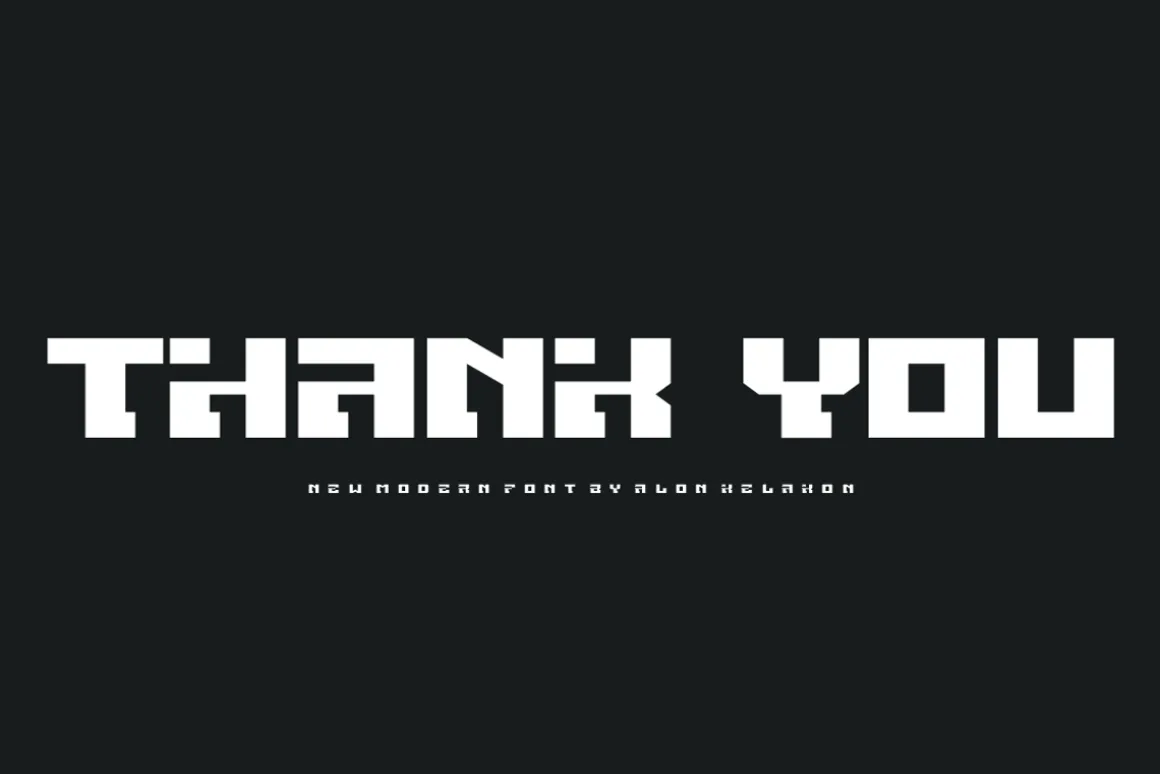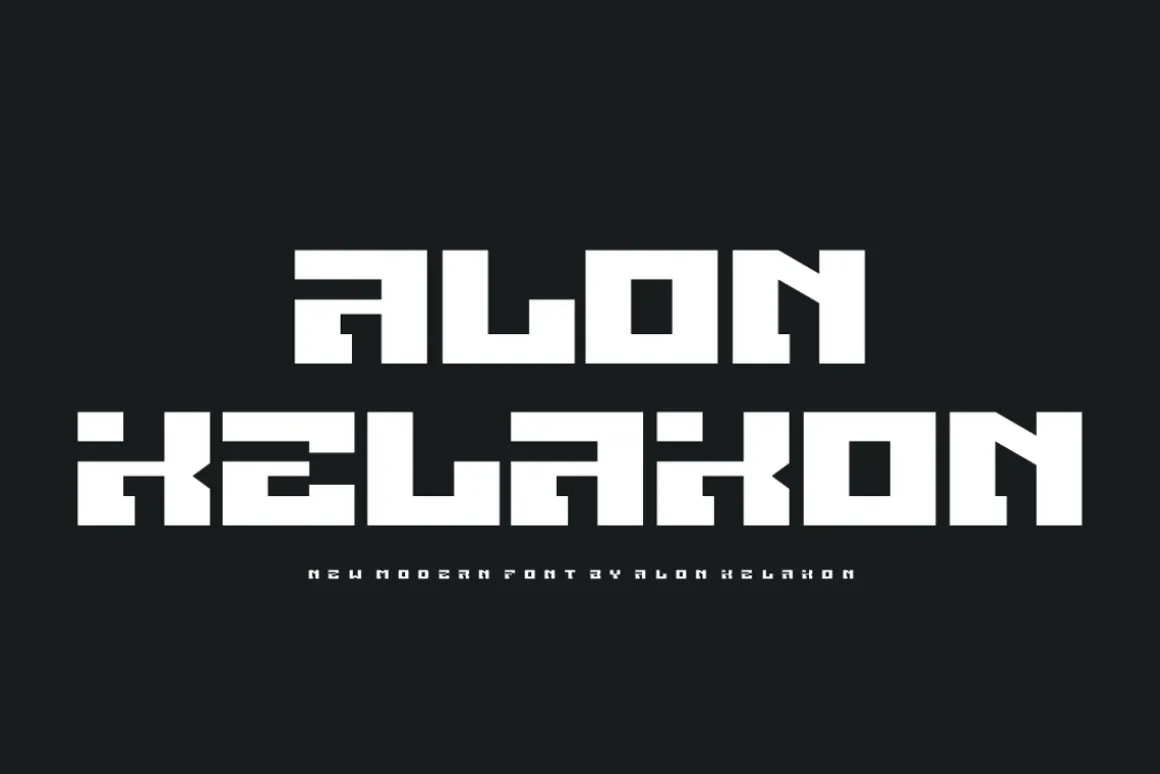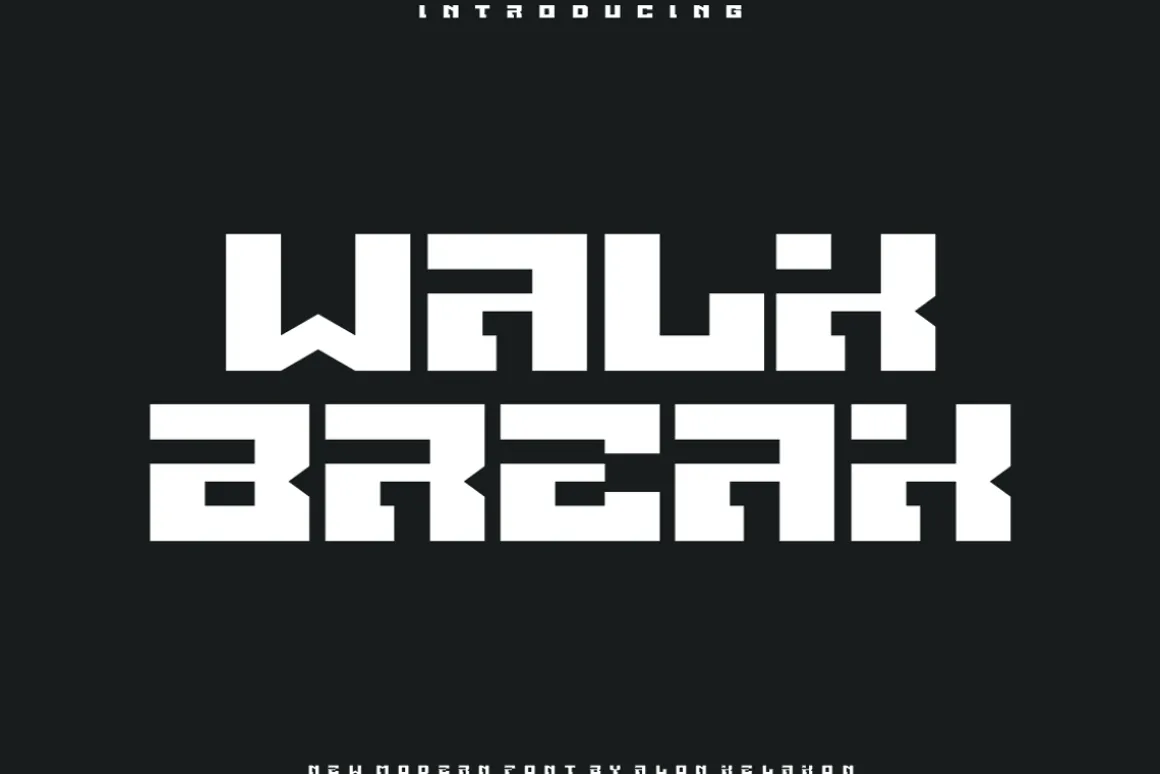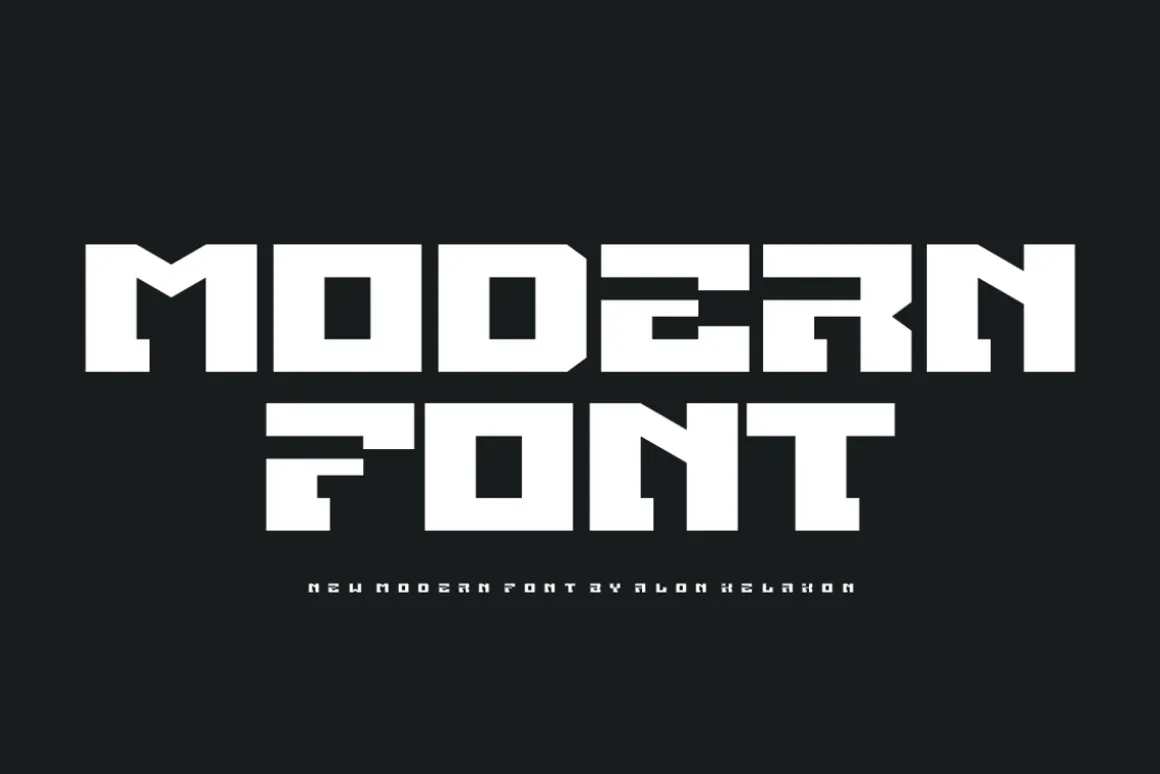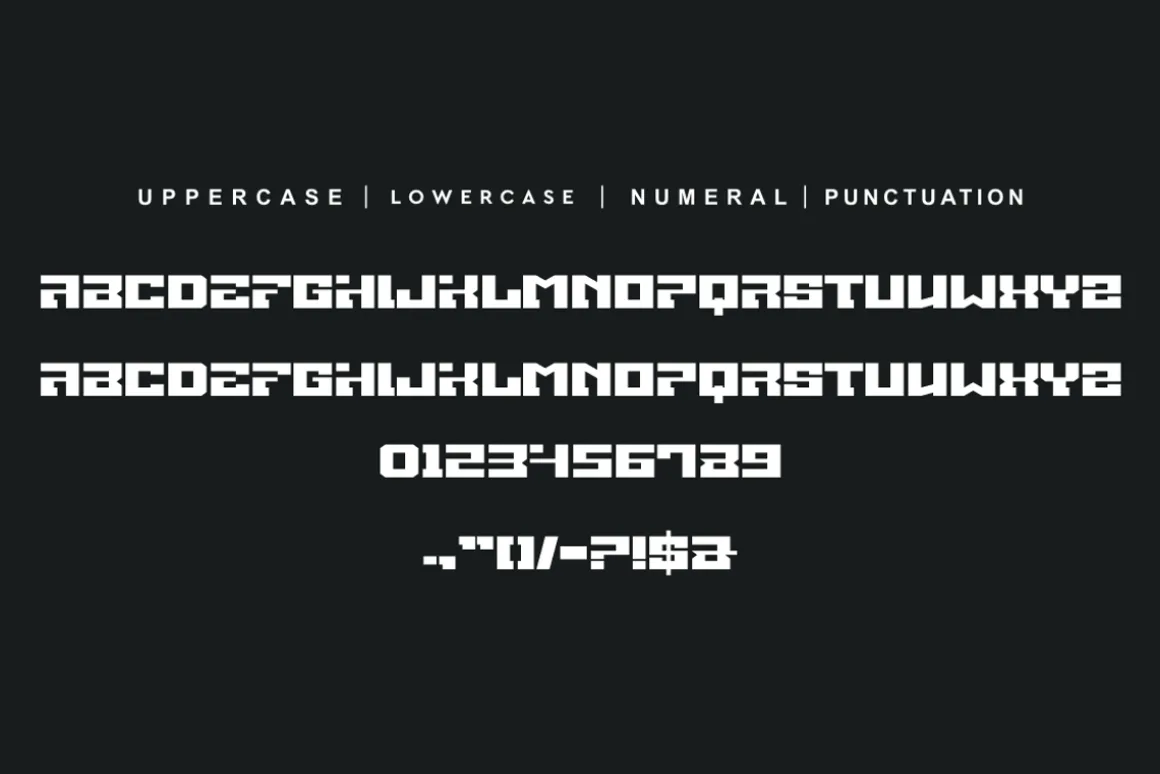
Walk Break Font Font is unique . Ready to use for your design like labeling, clothing, movie sceen, poster, movie title, gigs, album covers, logos, and much more.